Are you looking for some vintage fonts for your next design? Check out these options.
1. Microbrew
Microbrew, one of the most versatile retro display font families, comprise of 14 individual styles, plus retro banners, ornaments, and symbols. The mixture of wood type poster style and vintage letterpress is very impressive in microbrew. It also includes a set of extremely intentional ornaments and symbols. The more detailed styles work well at large sizes, and the cleaner styles add legibility at smaller sizes.
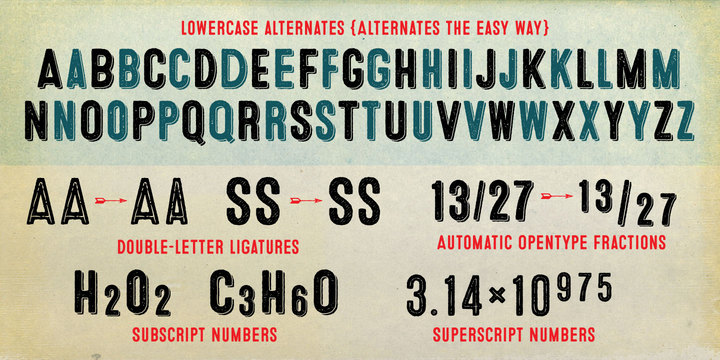
2. Brandon Printed
Based on famous Brandon Grotesque typeface, the font Brandon Printed is established. It has an eroded, printed look with four variations of every letter. This font has varieties of styles such as a shadowed version, an inline version and a double printed version through which you can create a lot of out-stunning combinations. The Brandon Printed package also contains a set with 95 Extras like arrows, catchwords, stars, emblems numbers & lines.
3. Eveleth
Eveleth, the premium high-resolution letterpress family with exceptional realism and vintage charm, features 3 different sub-families each with its own unique printed texture.
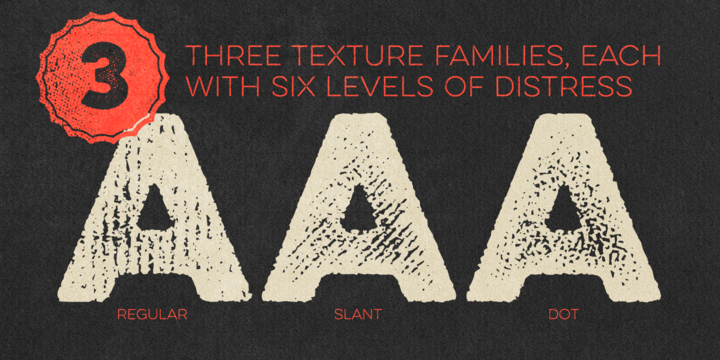
4. Frontage
Frontage is an appealing layered type system with endless design possibilities using several combinations of fonts and colors. If you want to feel the realistic 3D effect then you can simply add the shadow font or just use the capital letters of the regular and bold cut for stark artwork.
5. Charcuterie
Charcuterie family is a family of ten distinct but yet related typefaces, many of which have their own font families, and three decorative/ornamental typefaces. It offers broad and endless approach to creating frames of any dimension such as width, height and also style.
6. Thirsty Script Rough
Thirsty Script Rough is remarkably detailed and is a warm and weathered version of Thirsty Script with texture that captures the authentic qualities of letterpress printing. It’s highly customizable with four alternate versions of every weight ranging from very light to heavy distress.
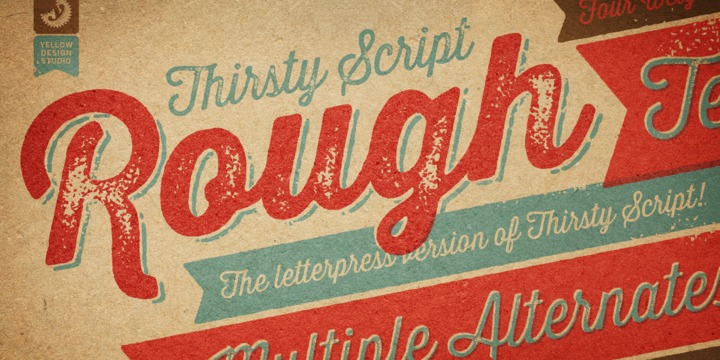
7. Gist Rough
Gist Rough is the letterpress version of Gist with highly detailed texture and looks great even at very large sizes. It’s warm and weathered with a retro yet modern vibe. Every weight includes 3 versions with varying levels of texture which can be used individually or mixed to taste.
8. Hipster Script
Hipster Script is a shot at computerized commercial lettering, though you can also have a more casual contrast, rather than the high seriousness of the Copperplate script. This typeface also helps in uniting the spontaneity of post-war ad lettering with the current trends in illustration and design.
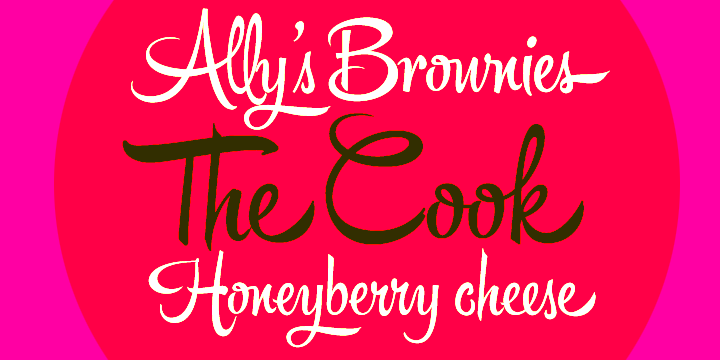
9. Core Circus
Core Circus is a layered type family that consists of seven 3D effect layers, eight 2D effect layers and one shadow effect layer. Uppercase and lowercase letters are separated by such features that counters are opened or closed.
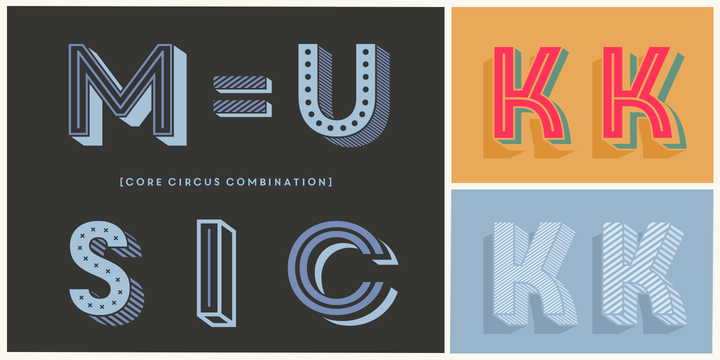
10. Wood type collection
Wood type collection is a set of wonderful, warm and weathered handmade typefaces designed by Mateusz Machalski from Borutta. The Inspiration for this collection comes from a wooden letter blocks and other old technologies used for printing.